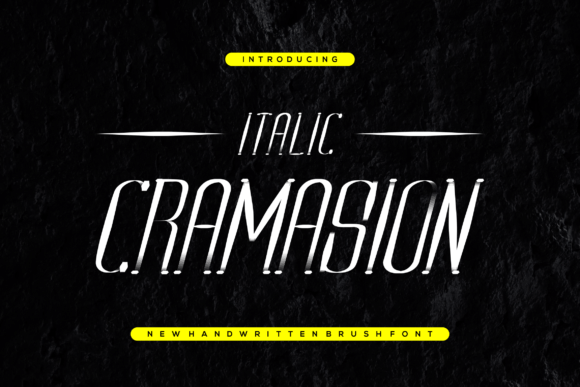
Journey into the world of Italic Cramasion, a modern and captivating font that exudes elegance and charm. This sans serif typeface, meticulously crafted by kalingga.albert, is a visual masterpiece designed to elevate your creative projects to new heights. Its handwritten style dances across the page, inviting warmth and personality into every design.
With its graceful curves and flowing lines, Italic Cramasion is the perfect choice for contemporary projects, digital media, and advertising. It effortlessly captures the essence of modern aesthetics, adding a touch of sophistication to logos, branding, and headlines. Whether you're creating a website, designing social media graphics, or crafting marketing materials, this font will make your message shine.
Explore the versatility of Italic Cramasion as it seamlessly adapts to a wide range of design styles. Its captivating design ensures that it stands out from the crowd, making it perfect for creating logos that leave a lasting impression. Unleash your creativity and let Italic Cramasion transform your brand into a symbol of timeless elegance.
Experience the beauty of Italic Cramasion in body copy, where its graceful strokes add a touch of charm and personality to your words. This font's readability and clarity ensure that your message is communicated effectively, leaving a lasting impact on your audience. Whether you're crafting articles, blog posts, or marketing materials, Italic Cramasion will elevate your content to new heights.
Discover the limitless possibilities of Italic Cramasion and unlock your creative potential. This modern and captivating font is the key to unlocking a world of design possibilities, where elegance meets functionality. Step into the world of Italic Cramasion and let your creativity soar.